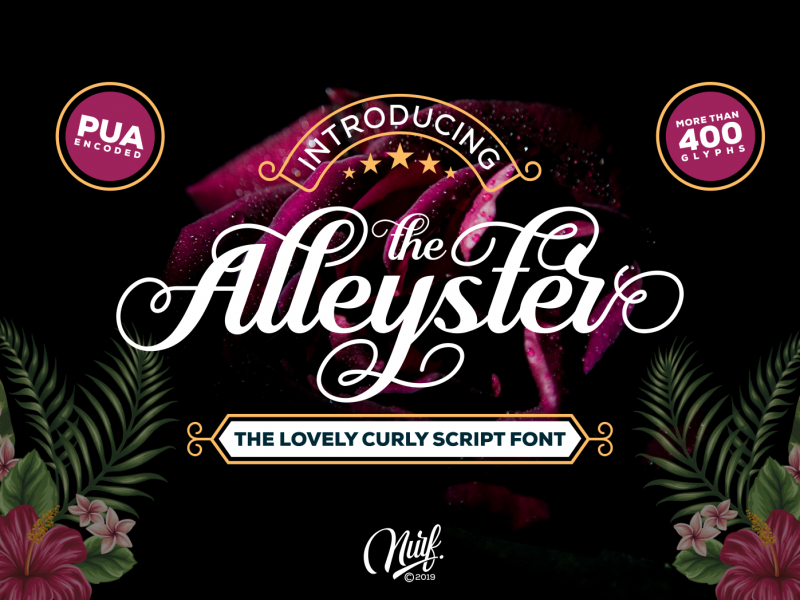
Alleyster Script Font
Alleyster Script Font is a lovely curly script font. It has a modern calligraphy style and includes amazing handwritten characters. It’s perfect for logos, posters, headlines, and every other design which needs to stand out!